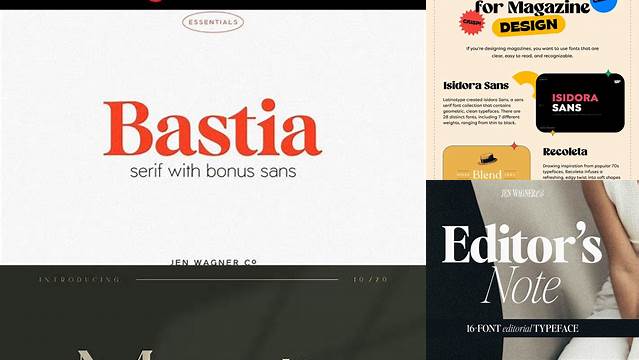
Best Fonts For Editorial Design: Create Stunning Layouts
Hey guys! Ever wondered what makes a magazine or book layout truly captivating? A huge part of it is the fonts used. Editorial design is all about visual communication, and the right font can make or break your message. So, let's dive deep into the world of fonts for editorial design and discover how to choose the perfect ones to create stunning layouts!
1. Understanding Editorial Design Fonts
So, what exactly are editorial design fonts? Well, editorial design encompasses the layout and visual presentation of content in publications like magazines, newspapers, books, and even digital media. When selecting fonts for editorial design, we're not just thinking about aesthetics, but also readability, hierarchy, and the overall tone of the publication. The fonts need to work together seamlessly to guide the reader through the text and create a cohesive visual experience. Think of it as crafting a visual symphony where each font plays a crucial role in the overall harmony. You need to consider the target audience, the subject matter, and the overall brand identity. A fashion magazine will likely use very different fonts compared to a scientific journal. Ultimately, understanding fonts for editorial design is about understanding how typography impacts communication and visual storytelling. The right choice can elevate your design from good to great!
2. Serif Fonts in Editorial Layouts
Serif fonts, with their little decorative strokes at the ends of letterforms, are often considered the workhorses of editorial design. They have a classic, elegant, and trustworthy feel, making them ideal for body text and headlines alike. In editorial layouts, serif fonts lend a sense of sophistication and readability, especially in long-form content. Think of classic book designs – chances are, they’re using a serif font like Times New Roman, Garamond, or Baskerville. But it’s not just about tradition! Fonts for editorial design in the serif category offer a wide range of styles, from the traditional elegance of Old Style serifs to the sharper, more modern feel of Transitional and Didone serifs. Choosing the right serif involves considering the specific mood and message you want to convey. For example, a warm and inviting serif might be perfect for a lifestyle magazine, while a bolder, more authoritative serif could work well for a news publication. The key is to balance the aesthetic appeal with readability, ensuring your fonts for editorial design enhance the reader’s experience. When selecting fonts, try pairing a classic serif for body text with a more distinctive serif for headlines to create visual interest and hierarchy within the layout.
3. Sans-Serif Fonts for Modern Editorial Design
Sans-serif fonts, characterized by their clean and minimalist letterforms, have become increasingly popular in modern editorial design. Their simplicity and legibility make them a fantastic choice for headings, subheadings, and even shorter blocks of body text. In contemporary fonts for editorial design, sans-serifs often convey a sense of modernity, clarity, and directness. Think of magazines with a sleek, minimalist aesthetic, or websites that prioritize user-friendliness. Popular sans-serif options include Helvetica, Arial, Open Sans, and Montserrat. But don't think sans-serif equals boring! The world of sans-serif fonts for editorial design is incredibly diverse, ranging from geometric styles to humanist designs that offer a touch of warmth and personality. When choosing a sans-serif, consider the overall tone you want to achieve. A bold, geometric sans-serif can make a strong statement in a headline, while a softer, more rounded sans-serif might be better suited for body text. Experimenting with different weights and styles within a sans-serif family can add visual interest and hierarchy to your design. It’s all about finding the right balance between aesthetics and readability when using fonts for editorial design in the sans-serif category. For digital publications, sans-serif fonts often provide superior on-screen readability.
4. Display Fonts in Editorial Headlines
Display fonts are the rockstars of the typographic world, designed to grab attention and make a statement. In editorial headlines, these fonts for editorial design can be a powerful tool for creating visual impact and setting the tone for an article or section. Display fonts come in a vast array of styles, from bold and dramatic serifs to playful and quirky scripts. Think of the eye-catching headlines in fashion magazines, the vintage-inspired lettering on posters, or the hand-drawn feel of a children’s book. But with great power comes great responsibility! Display fonts should be used sparingly, as too much can overwhelm the reader and detract from the overall design. The key is to choose a display font that complements the other fonts for editorial design in your layout and reflects the content's mood and message. A bold, condensed sans-serif might be perfect for a serious news story, while a flowing script could be ideal for a feature on travel or lifestyle. When selecting display fonts, consider the kerning (the space between letters) and the overall readability, especially at larger sizes. Remember, the goal is to attract the reader's attention and entice them to delve deeper into the content. Using display fonts strategically can elevate your editorial design and create a memorable visual experience.
5. Font Pairing for Editorial Consistency
Font pairing is the art of combining different fonts in a way that creates visual harmony and enhances readability. In editorial design, effective font pairing is crucial for establishing a consistent and professional look. It's like putting together an outfit – you want the pieces to complement each other without clashing. A common approach is to pair a serif font for body text with a sans-serif font for headings, or vice-versa. This creates a visual contrast that helps readers navigate the page. When choosing fonts for editorial design, consider their personalities. Do they share a similar mood or tone? Do they have contrasting features that create visual interest? Are they legible at different sizes and weights? A classic pairing might be a serif like Garamond for the body text with a sans-serif like Helvetica for headings. This combination offers a blend of elegance and clarity. But don't be afraid to experiment! You can also pair two different serif fonts or two different sans-serif fonts, as long as they have enough contrast in weight, style, or x-height. Online resources like FontPair and Typewolf can be great sources of inspiration for font pairings. Remember, the goal is to create a typographic hierarchy that guides the reader through the content and enhances the overall reading experience. Mastering fonts for editorial design involves understanding how different typefaces work together to create a cohesive and visually appealing layout. Don't hesitate to try out different combinations and see what works best for your project!
6. Readability in Editorial Typography
Readability is king when it comes to fonts for editorial design. No matter how beautiful a font is, if it's difficult to read, it defeats the purpose of communication. In editorial typography, readability refers to how easily readers can understand and engage with the text. Several factors contribute to readability, including font size, line height (leading), line length, and contrast between the text and background. When selecting fonts, consider the target audience and the reading environment. For example, if you're designing for older readers, you might choose a larger font size and a font with clear, open letterforms. Line height, the vertical space between lines of text, also plays a crucial role. Too little line height can make the text feel cramped, while too much can make it difficult to follow. A general rule of thumb is to set the line height to about 120-145% of the font size. Line length, or the number of characters per line, is another important consideration. Long lines can be tiring to read, while short lines can break the flow of thought. Aim for a line length of around 45-75 characters for optimal readability. Contrast between the text and background is essential. Dark text on a light background is generally the most readable option. Avoid using light text on a dark background, as this can cause eye strain. Finally, test your fonts for editorial design choices with different readers to get feedback on readability. Remember, the goal is to make the text as accessible and enjoyable to read as possible.
7. Font Licensing for Editorial Use
Font licensing is a crucial, yet often overlooked, aspect of editorial design. Before you use any font in a commercial project, it's essential to understand its licensing terms. Fonts for editorial design come with various licenses that dictate how they can be used, including whether they can be used for print, web, or embedding in digital documents. Some fonts are free for personal and commercial use, while others require a license fee. Using a font without the proper license can lead to legal issues and financial penalties. Common types of font licenses include desktop licenses, web licenses, and embedding licenses. A desktop license typically covers the use of a font on a computer for print and graphic design purposes. A web license allows you to use a font on a website, often through services like Google Fonts or Adobe Fonts. An embedding license permits you to embed the font in digital documents, such as PDFs or ebooks. When selecting fonts for editorial design, carefully review the licensing terms to ensure they meet your needs. If you're unsure about a font's license, contact the font foundry or distributor for clarification. Free font websites often have clear licensing information, but it’s still crucial to double-check. Investing in the right font licenses ensures that you're using fonts for editorial design legally and ethically, protecting yourself and your clients.
8. Using Google Fonts in Editorial Projects
Google Fonts is a treasure trove of free, open-source fonts that can be a fantastic resource for editorial projects. With hundreds of high-quality fonts available, it's easy to find the perfect typeface for your design. The best part? All Google Fonts are free to use for both personal and commercial purposes, making them a budget-friendly option for designers. In the realm of fonts for editorial design, Google Fonts offers a diverse range of styles, from classic serifs to modern sans-serifs, and even display fonts for headlines. Popular options include Roboto, Open Sans, Lato, and Montserrat, which are all highly legible and versatile. Using Google Fonts in editorial projects is straightforward. You can either download the fonts and install them on your computer or embed them directly into your website using a simple code snippet. This makes it easy to use the same fonts across different platforms, ensuring consistency in your design. When choosing fonts for editorial design from Google Fonts, consider the overall tone and message of your project. Pair a serif for body text with a sans-serif for headings, or experiment with different weights and styles within a font family. Online resources like Google Fonts' website and FontPair can help you find inspiring font combinations. Remember, just because a font is free doesn't mean it's low quality. Many Google Fonts are professionally designed and offer excellent readability and aesthetic appeal. Leveraging fonts for editorial design from Google Fonts can elevate your projects without breaking the bank.
9. Adobe Fonts for Professional Editorial Design
Adobe Fonts, formerly known as Typekit, is a subscription-based font library that offers a vast collection of high-quality typefaces for professional editorial design. If you're an Adobe Creative Cloud subscriber, you already have access to thousands of fonts from renowned foundries, making it a valuable resource for designers. The Adobe Fonts library includes a wide range of styles, from classic serifs and sans-serifs to expressive display fonts and scripts. This gives you the flexibility to find the perfect fonts for editorial design for any project. One of the key advantages of Adobe Fonts is its seamless integration with Adobe Creative Cloud applications like InDesign, Photoshop, and Illustrator. You can easily browse and activate fonts directly within these programs, streamlining your workflow. Adobe Fonts also offers clear licensing terms, making it easy to understand how you can use the fonts in your projects. Most fonts are licensed for both print and digital use, including websites, ebooks, and apps. When choosing fonts for editorial design from Adobe Fonts, consider the overall tone and message of your project, as well as the target audience. Experiment with different font pairings to create visual interest and hierarchy. Adobe Fonts' website offers helpful tools and resources for finding the right fonts, including font recommendations and pairing suggestions. Investing in a subscription to Adobe Fonts can be a wise choice for professional designers who need access to a wide variety of high-quality fonts for editorial design.
20. Using Text Alignment in Editorial Layouts
Text alignment is a fundamental aspect of editorial layout that significantly impacts readability and visual appeal. In fonts for editorial design, the way text is aligned within a page or column can affect how easily readers can scan and comprehend the content. There are four primary types of text alignment: left-aligned (also known as flush left), right-aligned (flush right), centered, and justified. Left-aligned text is the most common and generally considered the most readable option. In left alignment, the text aligns along the left margin, creating a consistent starting point for each line. This makes it easy for the reader's eye to track the text and follow the flow of information. Right-aligned text, in which the text aligns along the right margin, is less common and typically used for specific design elements, such as captions or pull quotes. Right alignment can be more difficult to read in long blocks of text, as the inconsistent starting points can disrupt the flow. Centered text, where each line of text is centered between the margins, is often used for headings, subheadings, and invitations. Centered text can create a sense of formality and elegance, but it can also be challenging to read in long blocks of text due to the lack of a consistent starting point. Justified text, in which the text is aligned along both the left and right margins, creates a clean and uniform look. Justification can improve the visual appeal of a page, but it can also lead to uneven spacing between words and letters, creating